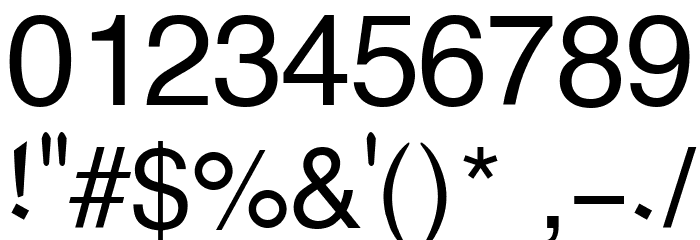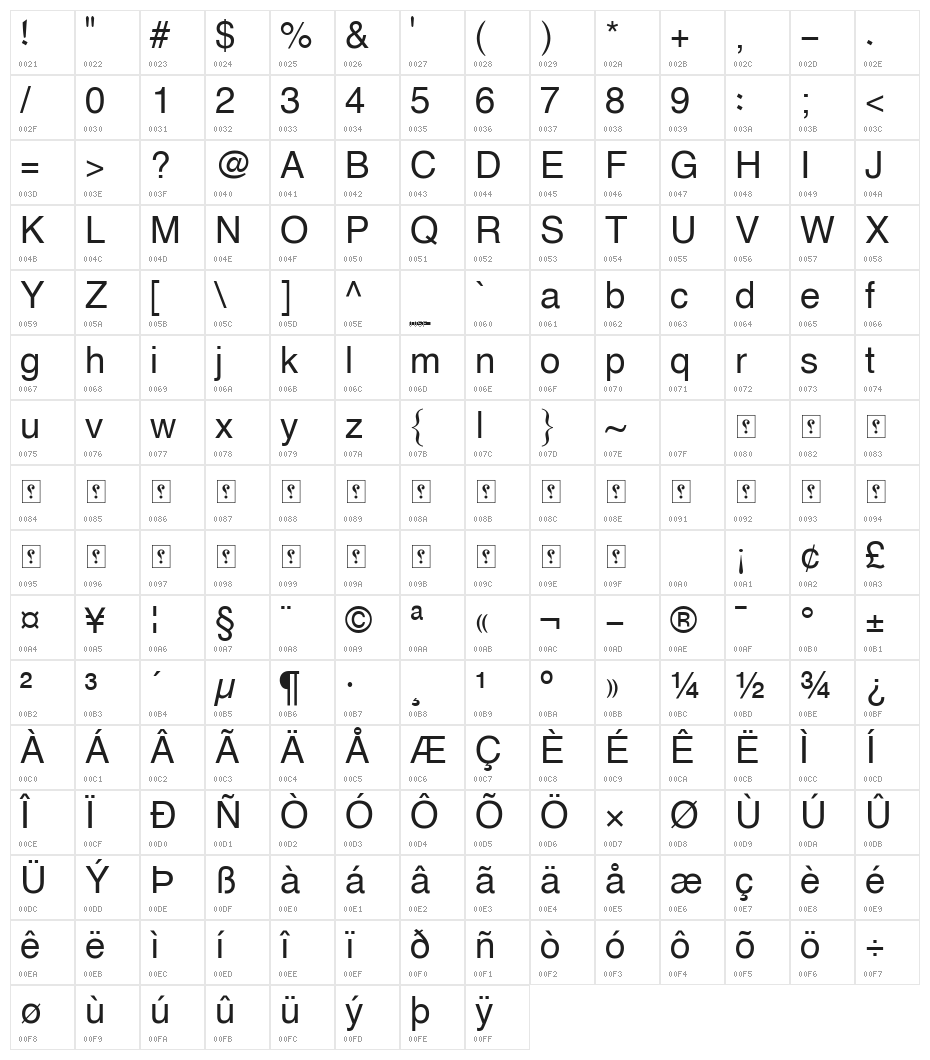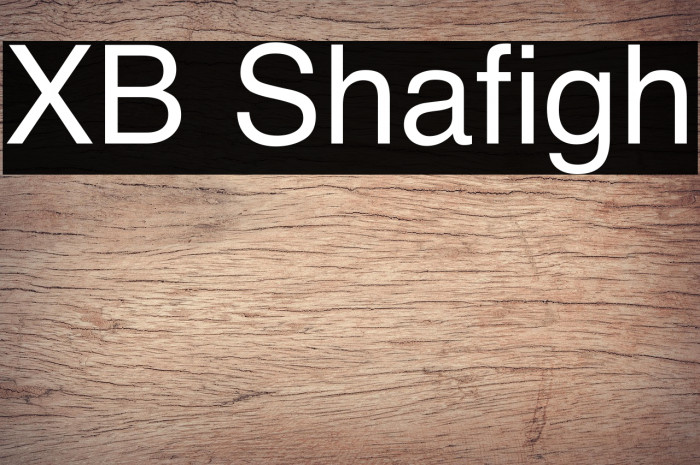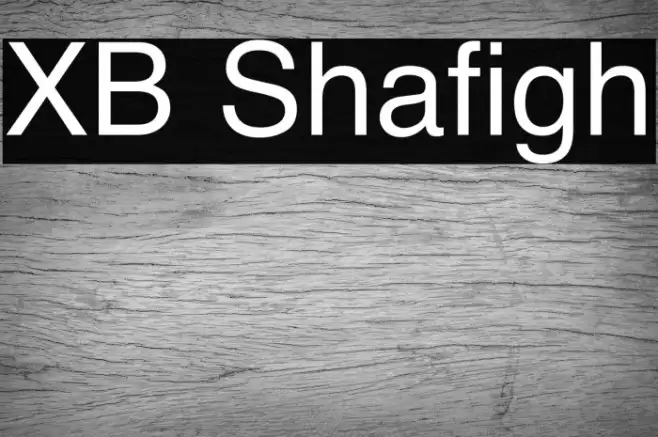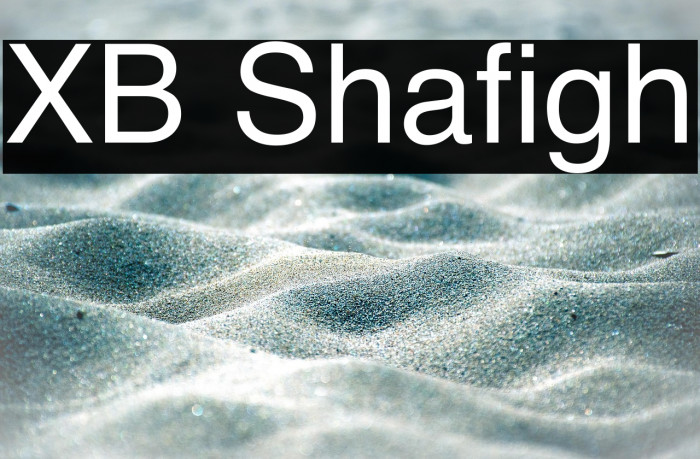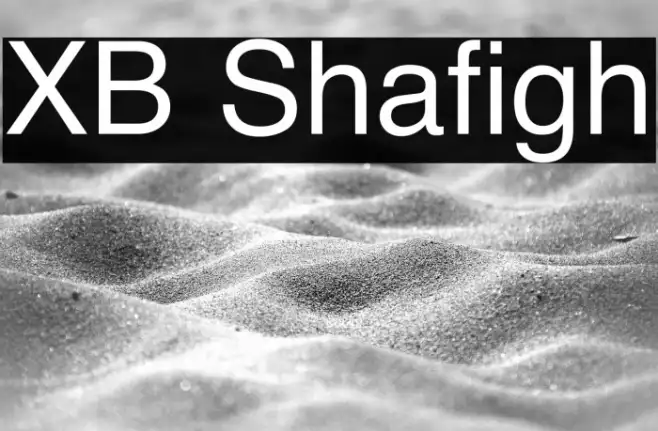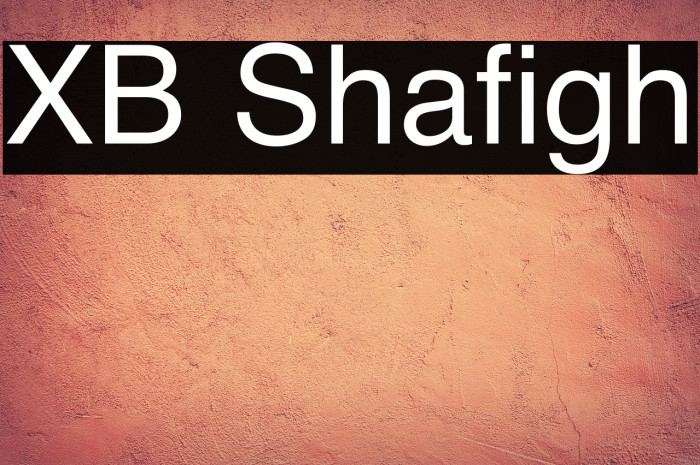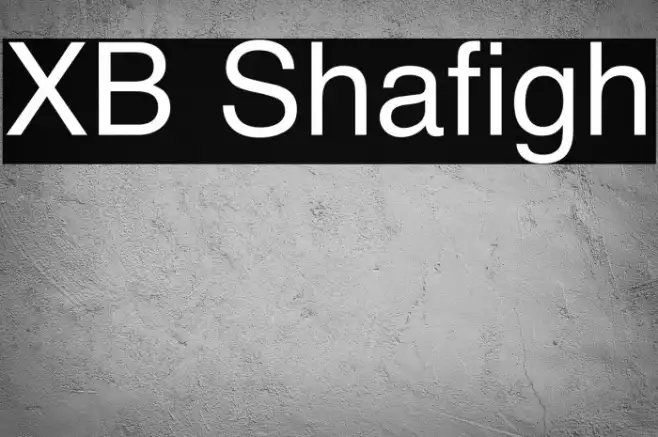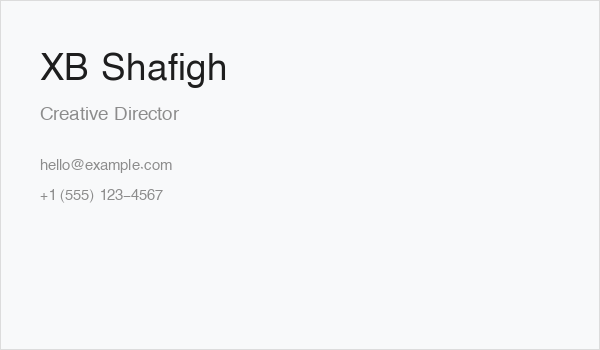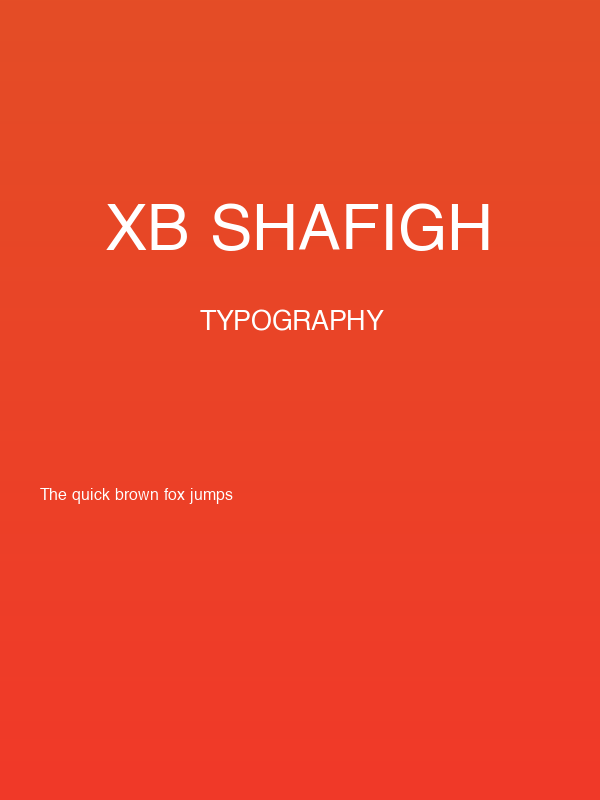
XB Shafigh Font
XB Shafigh Description
This font features a clean and modern sans-serif design, characterized by its simplicity and clarity. The letters are evenly spaced with a consistent stroke width, providing a balanced and harmonious appearance. The uppercase and lowercase letters are well-proportioned, making it highly legible at various sizes. The numerals are straightforward and align well with the overall style, while the special characters are distinct and easily recognizable. This font's minimalist aesthetic makes it versatile for a wide range of applications.
| Proposed Projects | Ideal for corporate branding, web design, user interfaces, and print media. |